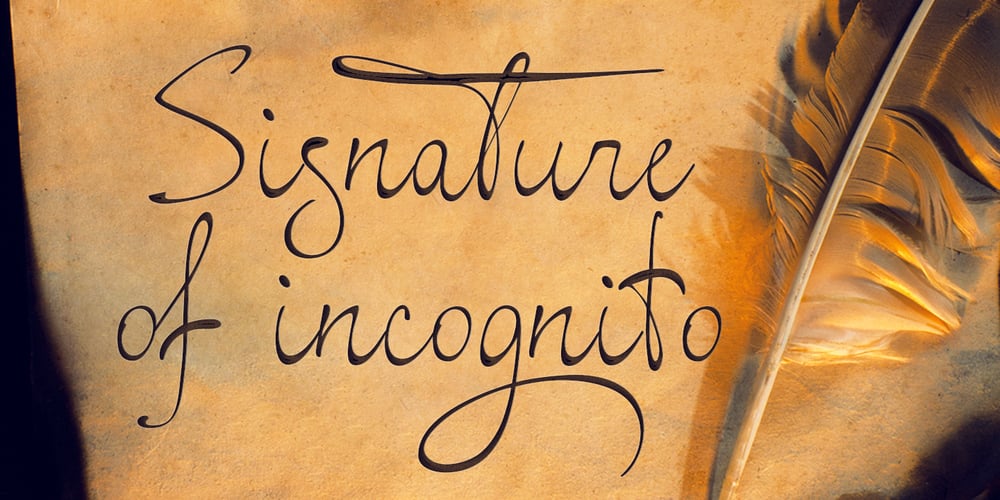
Signature of Incognito Font Family was designed by Polina Chistyakova and published by Innire. Signature of Incognito contains 2 styles and family package options. Signature of incognito is a handwriting script font, that was created using a fountain pen. Diacritical symbols and glyphs allow you to use the font not only for Latin. Ligatures and swashes diversify the text and can be applied to design cards, logos, clothing design, wedding invitations, and much more